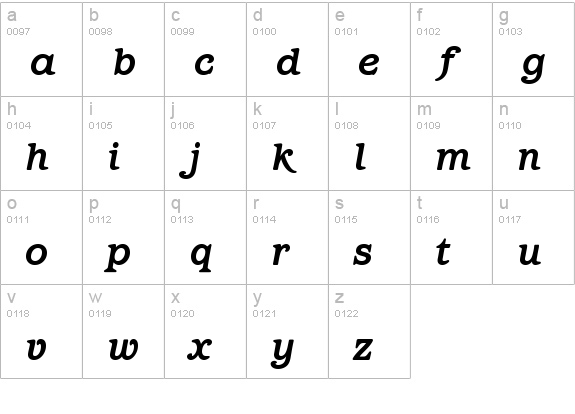
BarcelonaEF-BoldItalic is a bold and stylish font that exudes sophistication and elegance. Its sleek lines and distinctive italicized characters make it perfect for adding a touch of flair to any design project. This modern typeface is ideal for creating eye-catching headlines, branding materials, and editorial layouts. What sets BarcelonaEF-BoldItalic apart is not only its stunning appearance but also the fact that it is available for free download at FontsMarket.com. This means that you can easily access this high-quality font without any cost, making it a valuable addition to your font collection. Whether you're working on a professional project or a personal creative endeavor, BarcelonaEF-BoldItalic will elevate your designs and leave a lasting impression. Download this exceptional font today and take your typography to the next level.